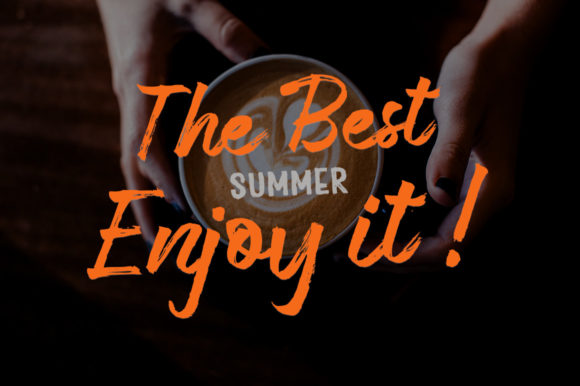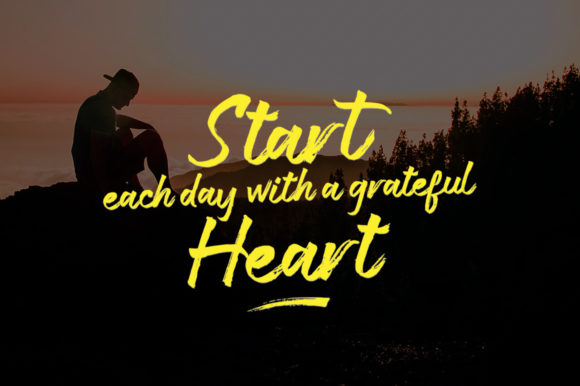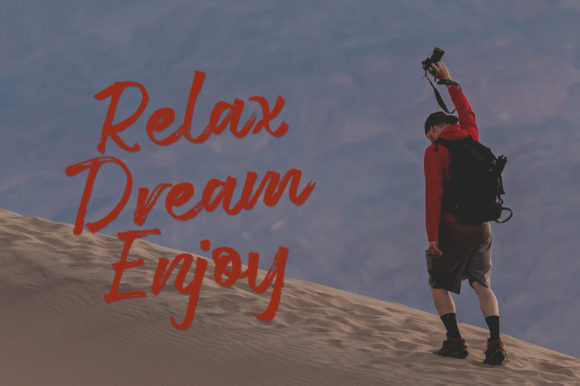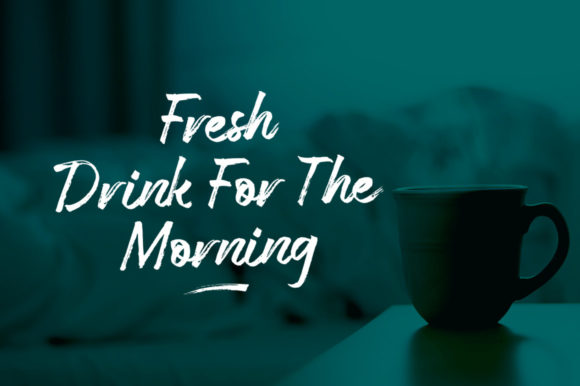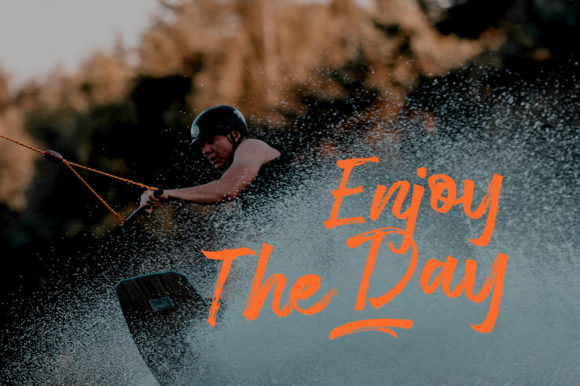
The Deysia Font: A Chic Brushed Handwritten Delight for Designers
Have you ever been in the middle of a design project, and suddenly, you’re stuck on finding the perfect font? I recall a recent experience where a client’s request for a “chic and modern” vibe had me scouring through font libraries for hours. That’s when I stumbled upon the Deysia font, a game-changing brushed handwritten font that instantly elevated my design. In this article, we’ll dive into the world of Deysia, exploring its features, uses, and some helpful tips for getting the most out of this beautiful font.
A Personal Review: What I Love About Deysia
So, what makes Deysia so special? Here are a few things that caught my attention:
- ✨ Adaptability: Deysia is incredibly versatile, making it perfect for a wide range of design projects, from branding and packaging to social media graphics and invitations.
- ✅ Elegant and Modern: The font’s brushed handwritten style exudes a sense of sophistication and coolness, adding a touch of elegance to any design.
- 💫 Easy to Read: Despite its stylish appearance, Deysia remains highly legible, even at smaller font sizes.
While Deysia is an excellent font, it’s not without its quirks:
- 🤔 Limited use in formal contexts: Due to its casual, handwritten nature, Deysia might not be the best fit for very formal or traditional designs, such as corporate reports or academic papers.
- ⚠️ Overuse of stylistic alternates: While Deysia offers a range of stylistic alternates, using too many can make the text look cluttered and difficult to read.
- Experiment with OpenType features, such as stylistic alternates and glyphs, to add more personality to your text.
While the origins of Deysia are unclear, it’s easy to imagine that the designer was inspired by the world of fashion and art. Perhaps they wanted to create a font that captured the essence of a chic, modern boutique or a trendy art gallery. Whatever the inspiration, Deysia is a true gem that deserves to be part of every designer’s font library.
| Does Deysia support OpenType features? | Yes, Deysia supports OpenType features, including stylistic alternates and glyphs. |
In conclusion, Deysia is a stunning brushed handwritten font that’s sure to elevate your designs. With its adaptability, elegance, and ease of use, it’s an excellent addition to any designer’s font library. So go ahead, give Deysia a try, and see the amazing results for yourself!